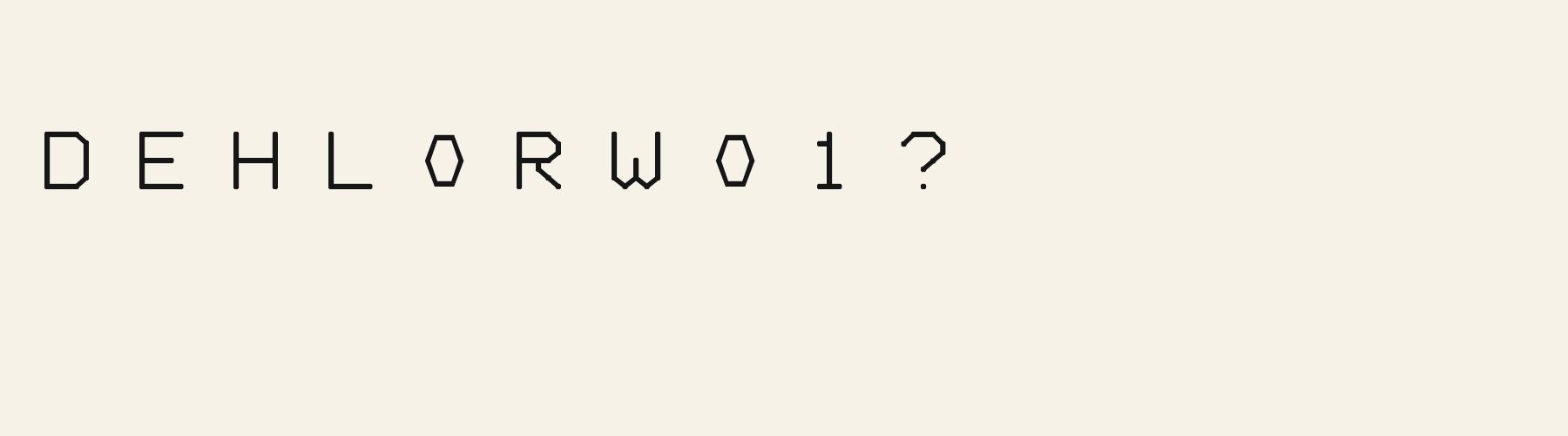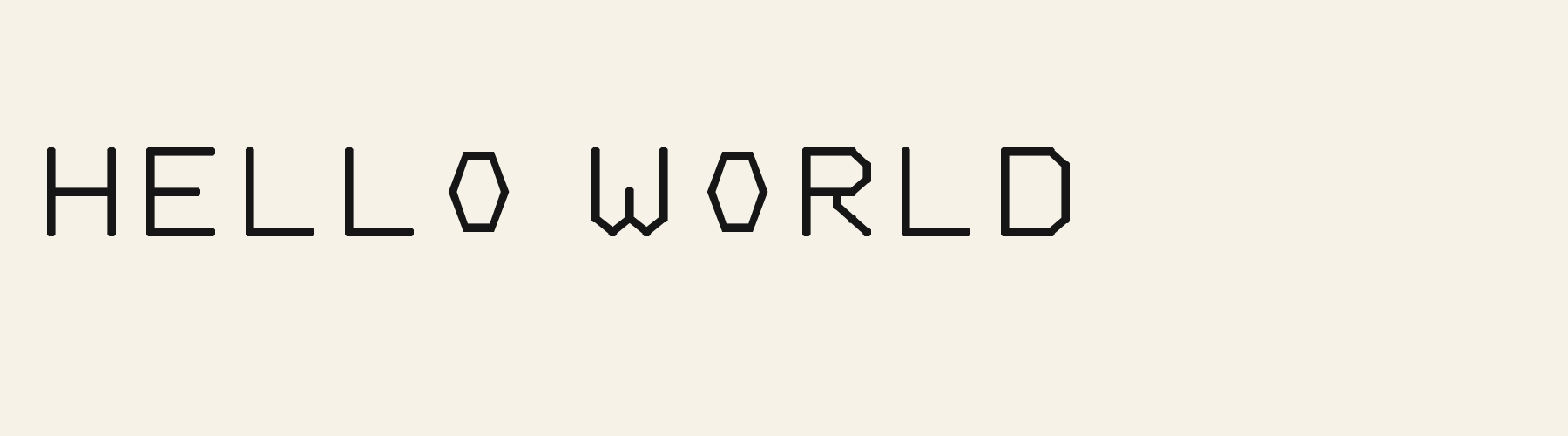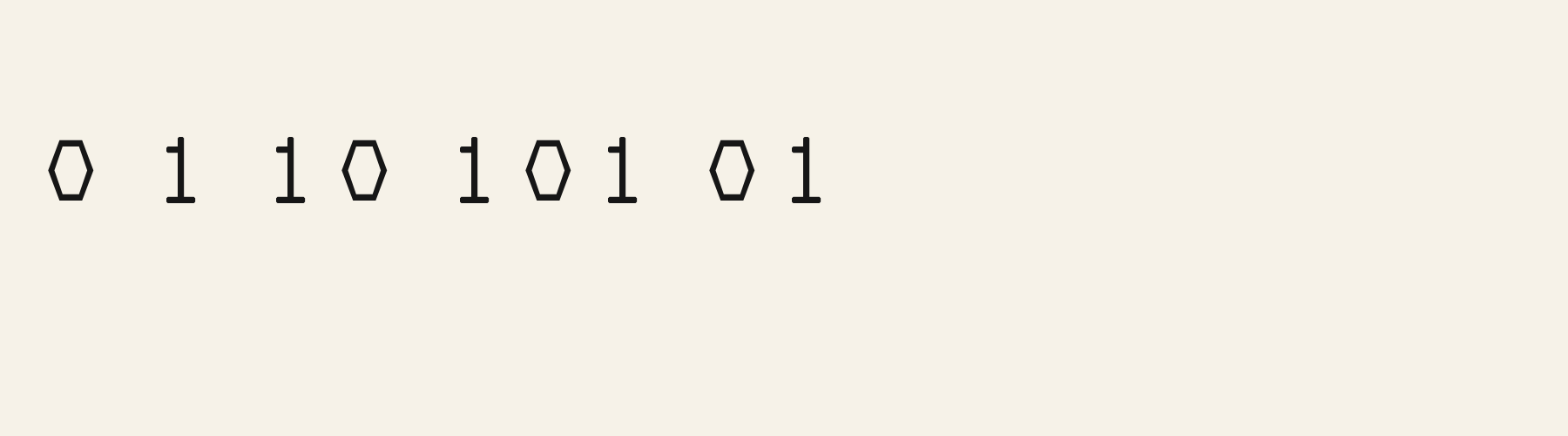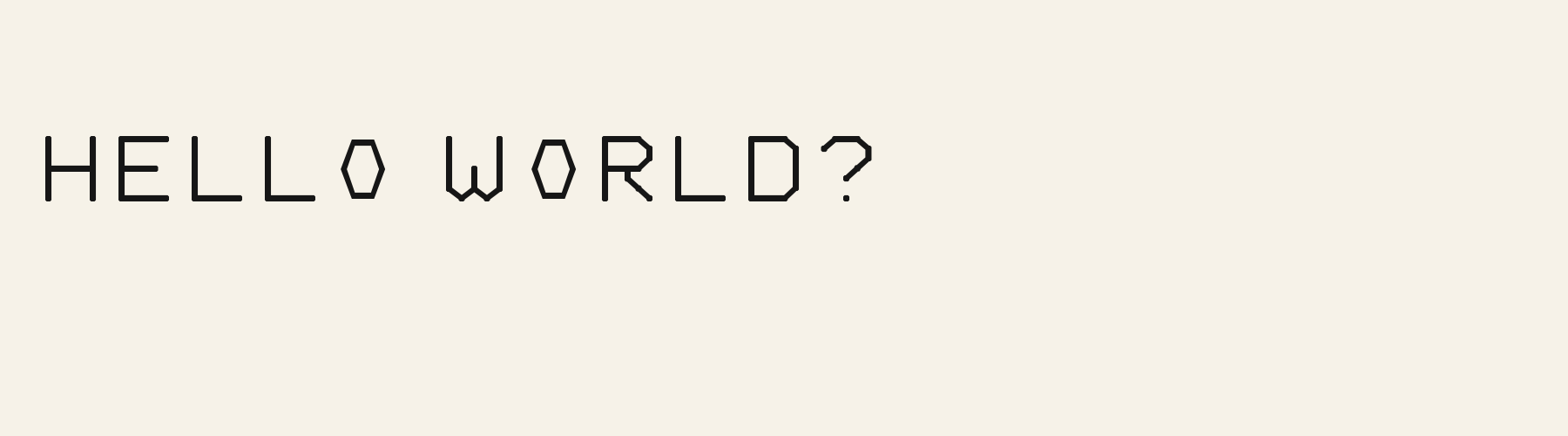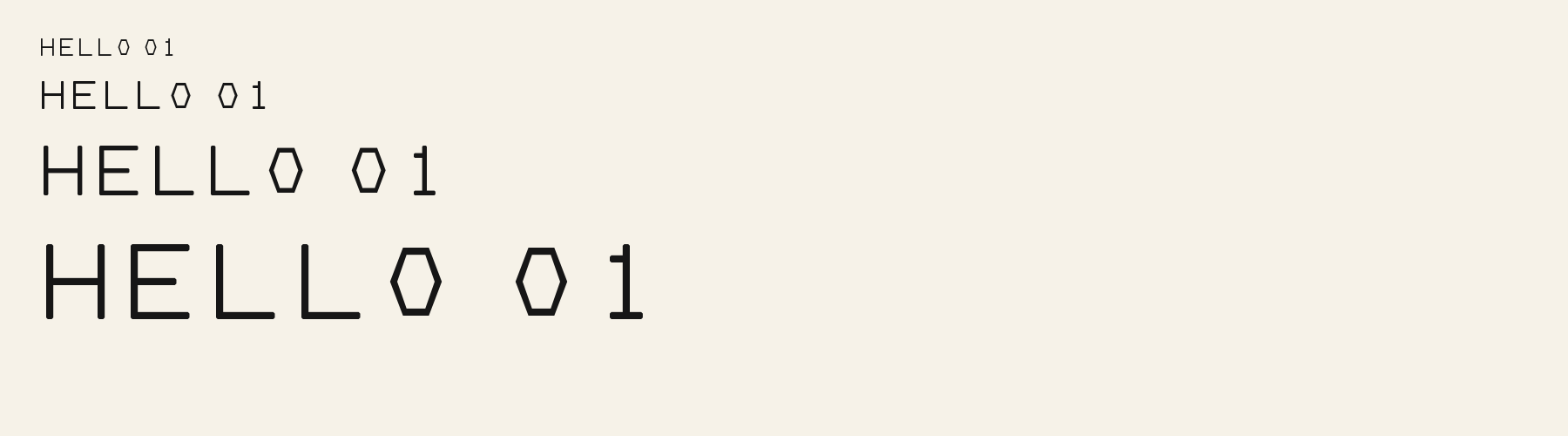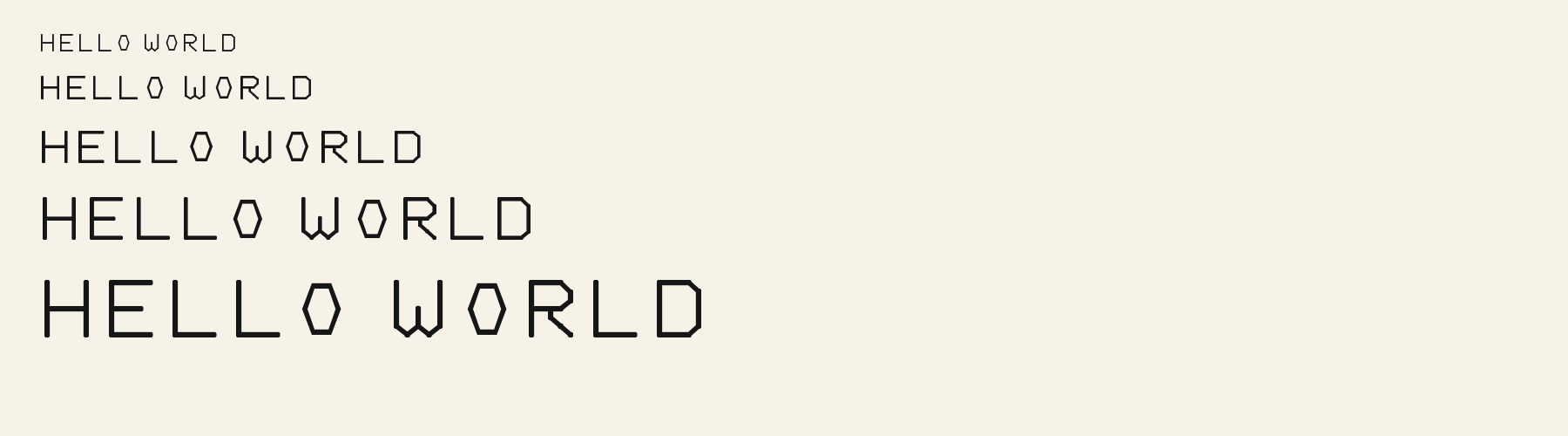
Geo Hex Grotesk Chamfered Counter Monoline Font
Geo Hex Grotesk gives familiar capitals a spare, angular rhythm.
Chamfered Counter Monoline Letterforms
Geo Hex Grotesk gives familiar capitals a spare, angular rhythm. The O forms a hexagonal ring with flat top and bottom edges, while the D keeps a straight left stem and clips the corners on its right side. The W drops into paired pointed valleys beneath upright outer stems, making it especially distinctive within a word. Even strokes link these shapes to the plain bars of H and E. Generous gaps around the letters keep the line airy, and the combination of open space and abrupt turns gives short wording a restrained, technical mood.
Inspect O beside D, the R leg and repeated W shapes in your actual Latin wording. Check whether the airy spacing keeps words connected. Preview Greek text separately, since the supplied specimens show Latin capitals rather than Greek letterforms.
Try this font for short headings or technical labels, with a text face using softer curves and more compact spacing for supporting copy. Its angular bowls and spacious rhythm would give the heading a distinct role beside denser explanatory text.
Compare the original spacing with a slightly wider setting. The specimen already leaves generous air around its narrow strokes; extra spacing can emphasize separate letter shapes while weakening the connection between letters in each word.
Geo Hex Grotesk uses spare monoline strokes, a hexagonal O and angular W valleys. Its open surrounding space gives the phrase a quiet, technical presence.
Product label. The even strokes and angular bowls suit equipment labels with a restrained technical character. LOW ORBIT
Book or album cover. Hexagonal O shapes and generous surrounding space give a sparse album cover a clear visual motif. HELLO WORLD
Website headline. The angular W and clipped bowls give a short website headline recognizable detail within a light, open line.
Geo Hex Grotesk's lowercase x reaches 69.8% of the capital height, close to the 71.4% median for sans serif fonts, lower than 24 of the 34 other sans serif fonts. Ascenders on b, d, h, k and l line up with the capitals (100% of their height), and descenders on g, j, p, q and y drop 30.2% of the cap height below the baseline, deeper than 25 of the 34 other sans serif fonts. Geo Hex Grotesk runs 41.6% wider than the median for sans serif fonts: an average lowercase letter, spacing included, is 110.9% as wide as the capitals are tall (an average capital, 111.6%). The o is close to a circle, 1.13 times as wide as it is tall, and M and W are the widest capitals, at 1.12 times the width of H. The O stops 4.7% of the cap height short of H and stands 4.7% above the baseline.
The letters stand upright, leaning less than 2.5° either way. Vertical stems measure 9.5% of the cap height, lighter than 17 of the 28 other sans serif fonts. Ink covers 18.1% of each lowercase letter's box (its advance width by the cap height), lighter than 27 of the 34 other sans serif fonts. Strokes keep one thickness in every direction: the sides of o and O measure the same as their tops and bottoms.
Its 228 characters include 116 Latin and 69 Greek letters, plus 43 figures, punctuation marks and symbols; 64 of the Latin letters are accented or special forms beyond A to Z. The word space measures 54% of the cap height, and the blank space either side of a lowercase letter takes up 34.6% of its width. The font carries no kerning, so spacing comes from each letter’s own side bearings. All ten figures share one width, so columns of numbers line up.